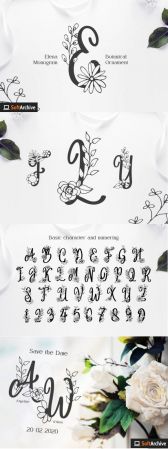
Angelina Monogram is a beautiful monogram font. Fall in love with its authentic feel and use it to create gorgeous wedding invitations, beautiful stationary art, eye-catching social media posts, and cute greeting cards.